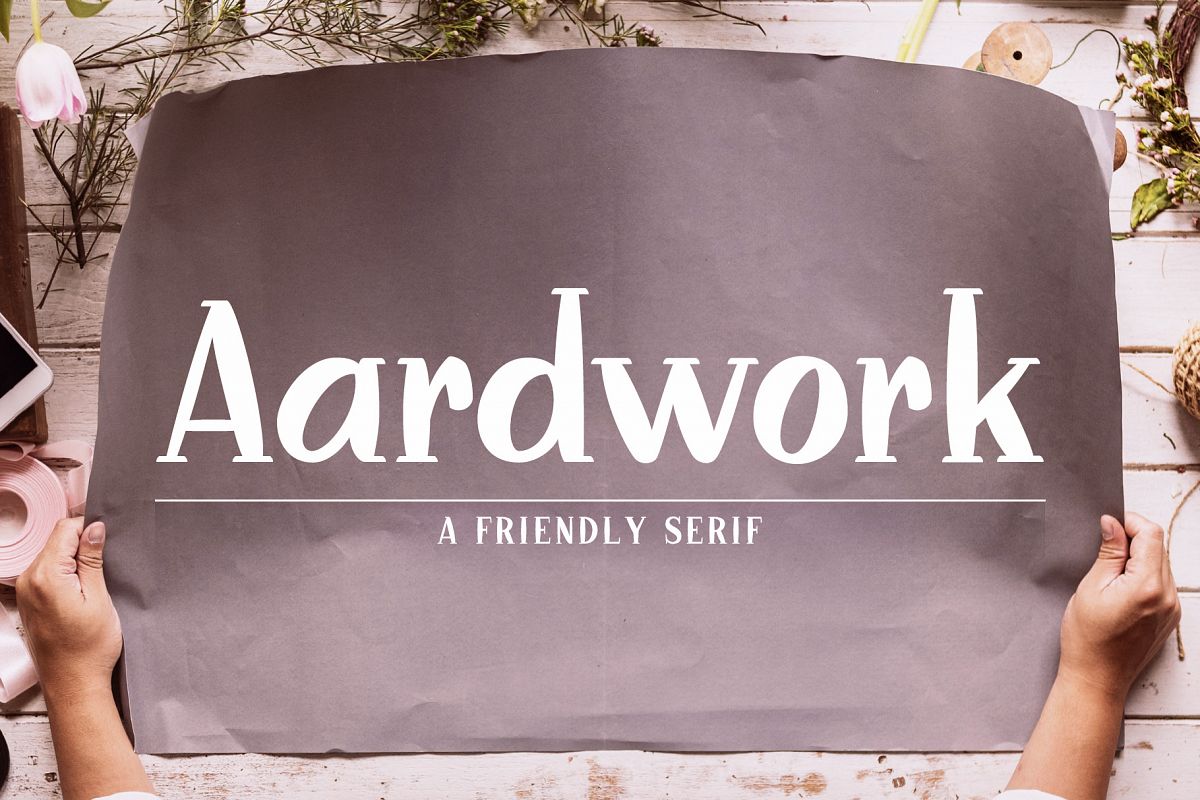
Aardwork - A Friendly Serif
Aardwork is an unconventional serif font that incorporates the stroke variations you would normally see in a brush script with the structure and stability of traditonal serifs. The slightly curved letterforms make Aardwork have that 'friendly' look, making it a lot more approachable and informal.
Aardwork has a multitude of diacritics and supports English, French, German, Spanish, Portuguese, Italian,Turkish, Estonian, Norwegian, Swedish, Slovenian, Albanian, Czech, Croatian, Belarusian, Corsican, Faroese, Finnish, Filipino, Samoan, Welsh, Swahili, Zulu and many more languages.You can access the ligatures through the Opentype features on Adobe applications and also through the Glyphs panel.